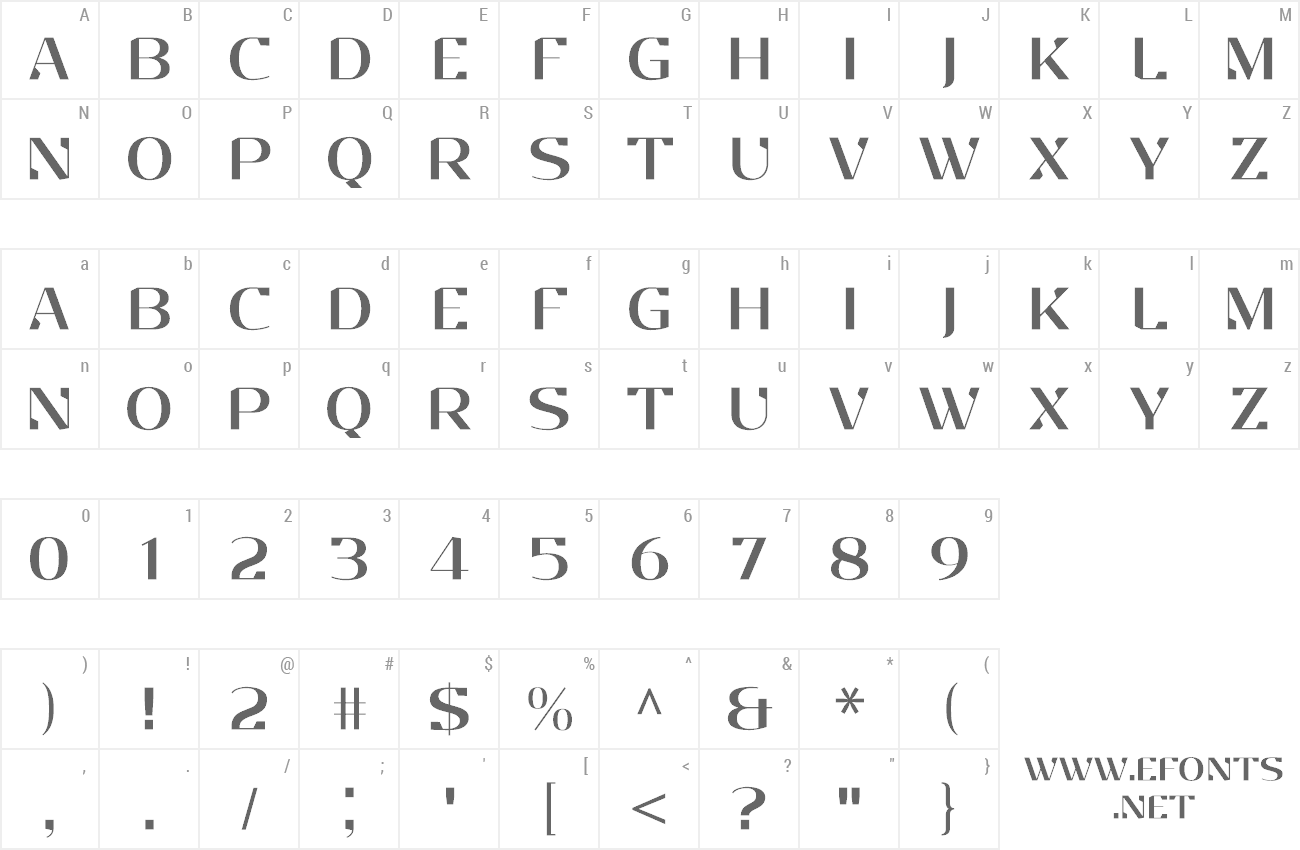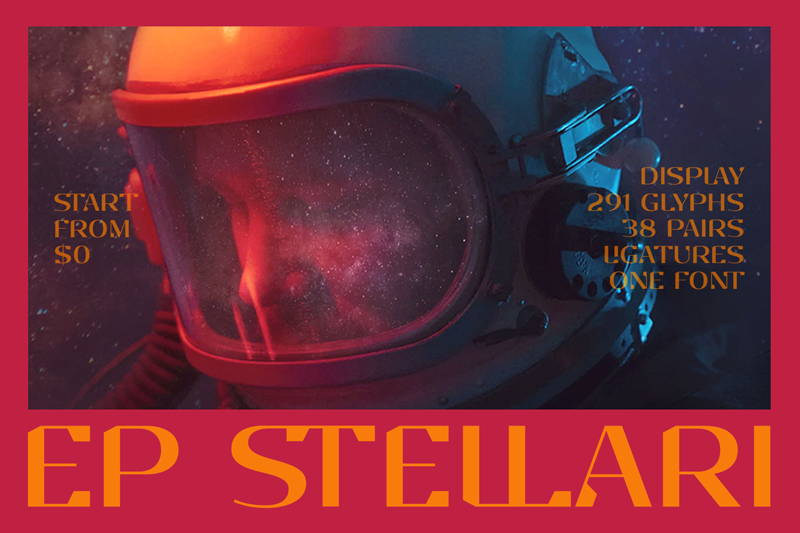
Preview and download EP Stellari Display Font. Created by Edy Pang Muhtar in Techno Sci-fi styles with 100% Free license.
EP Stellari is a modern futuristic display font with a little bit of classic touch. Its construction is made from the combination of bold and thin lines, taking characteristics from common serif and strong futuristic forms. Donate to the author at https://paypal.me/edypang |